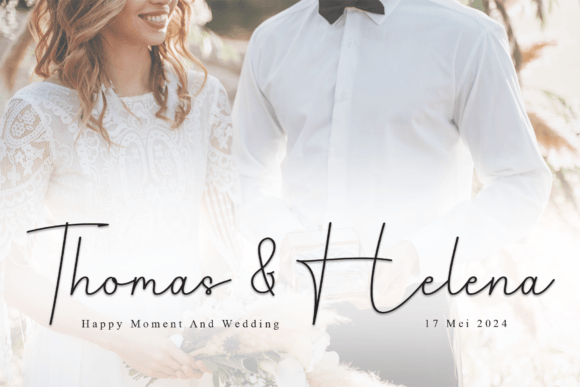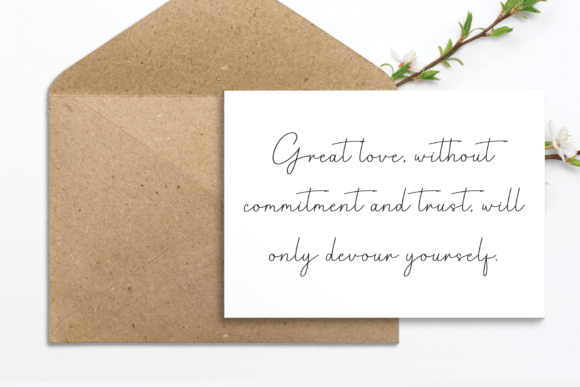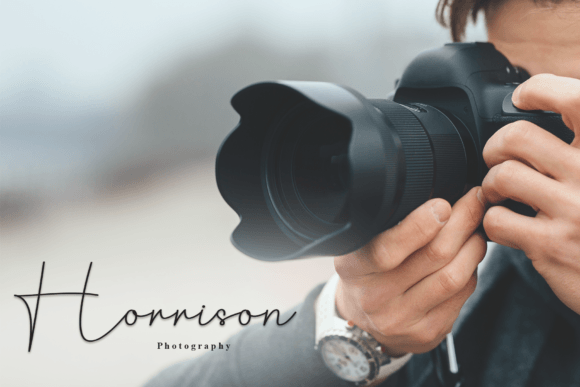
American Signature Font
American Signature is a handwritten font that looks like elegant cursive writing. It has smooth and stylish letters, making it perfect for adding a personal and fancy touch to invitations, greeting cards, and logos.